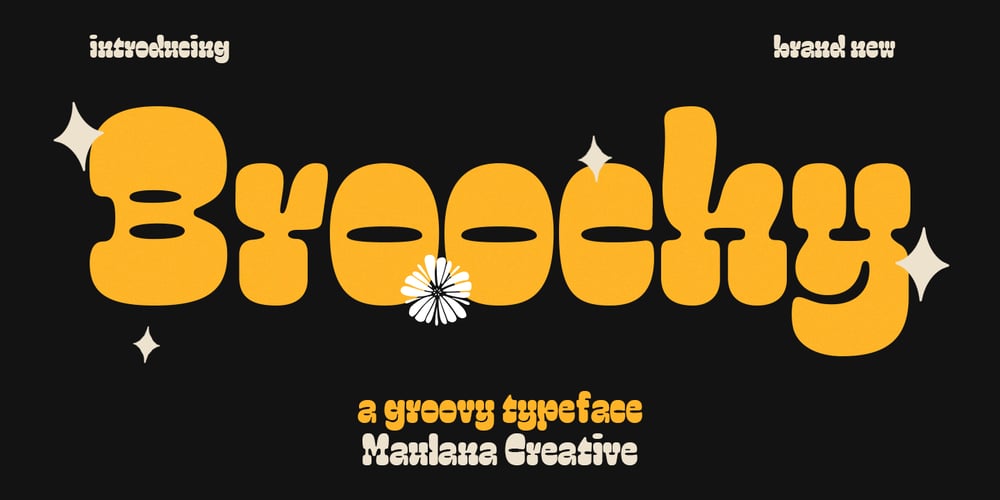
Broochy
Broochy font
Broochy Font Family was designed by Gilang Maulana and published by Maulana Creative. Broochy contains 1 styles and family package options. Broochy is a Groovy Slab serif Display font. Heavy and medium contrast stroke, fun character with a bit of ligatures and alternates. To give you an extra creative work. Broochy font support multilingual more than 100+ language. This font is good for logo design, Social media, Movie Titles, Books Titles, a short text even a long text letter and good for your secondary text font with script or serif. Make a stunning work with Broochy font. Cheers, Maulana Creative